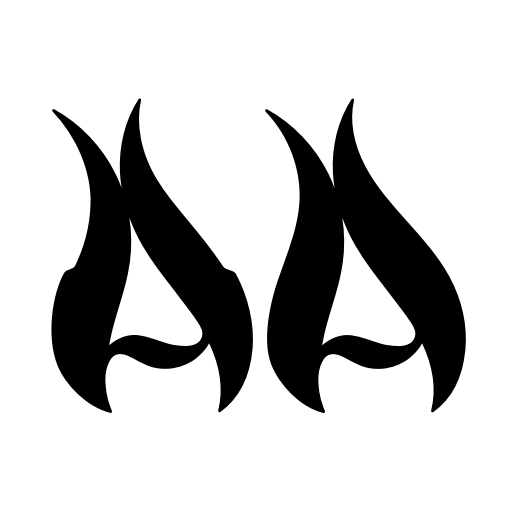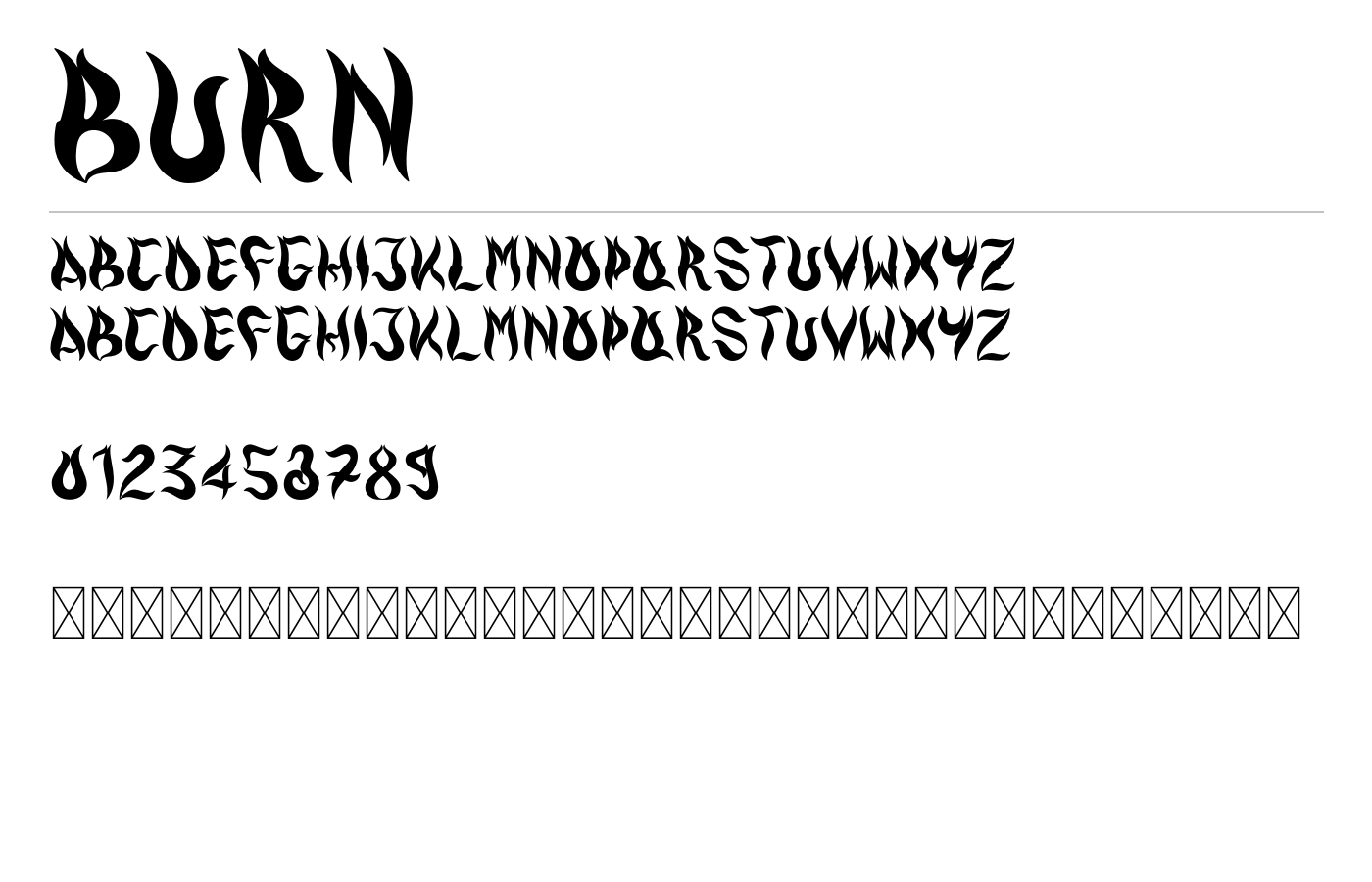
Burn Font is a bold and dramatic display typeface featuring sharp, flame-like strokes that give each letter a dynamic, fiery appearance. Its uppercase letterforms are tall and narrow with high contrast between thick and thin elements, evoking a sense of intensity and energy, making it perfect for attention-grabbing headlines, logos, or branding in extreme sports, rock music, or edgy fashion contexts. This font’s unique, decorative style works best in designs seeking a striking, rebellious mood rather than for extended body text.
Burn Font
About Burn Font